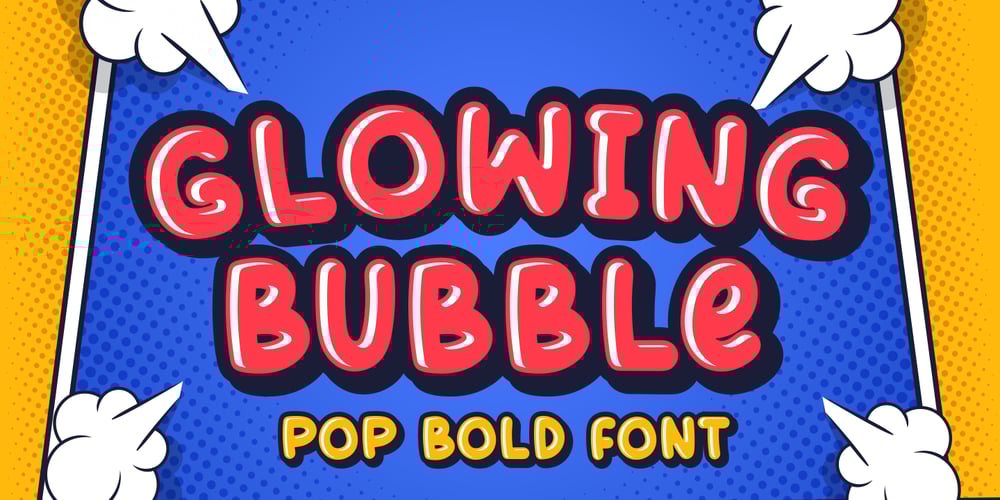
Glowing Bubble
Glowing Bubble font
Glowing Bubble Font Family was designed by Stefie Justprince and published by Crumphand. Glowing Bubble contains 4 styles and family package options. Introducing the new fonts, Glowing Bubble.Glowing Bubble is a Pop, Bold and Retro fonts.Good for your brand cute brand. as long as you can matching your layout.Glowing bubble comes with 4 style : Regular Outline Shadows/Extrude Hightlights The font has include Multilingual Language.Thank You, Regards.